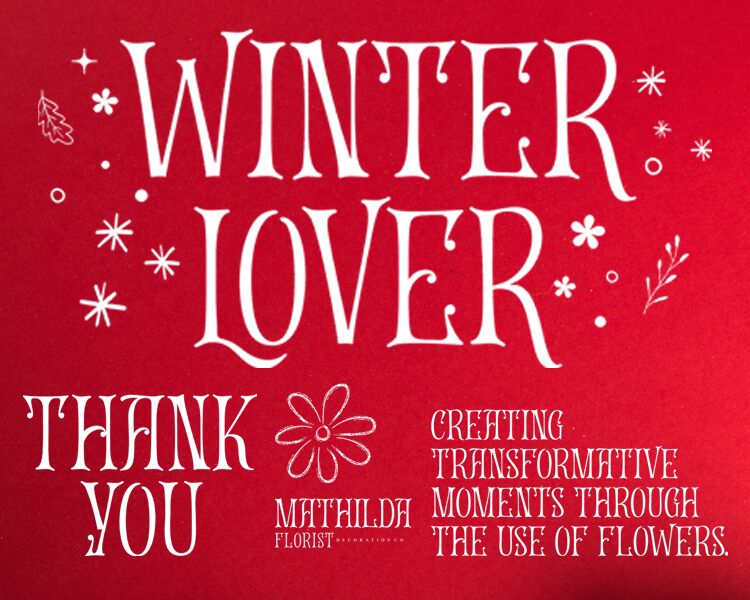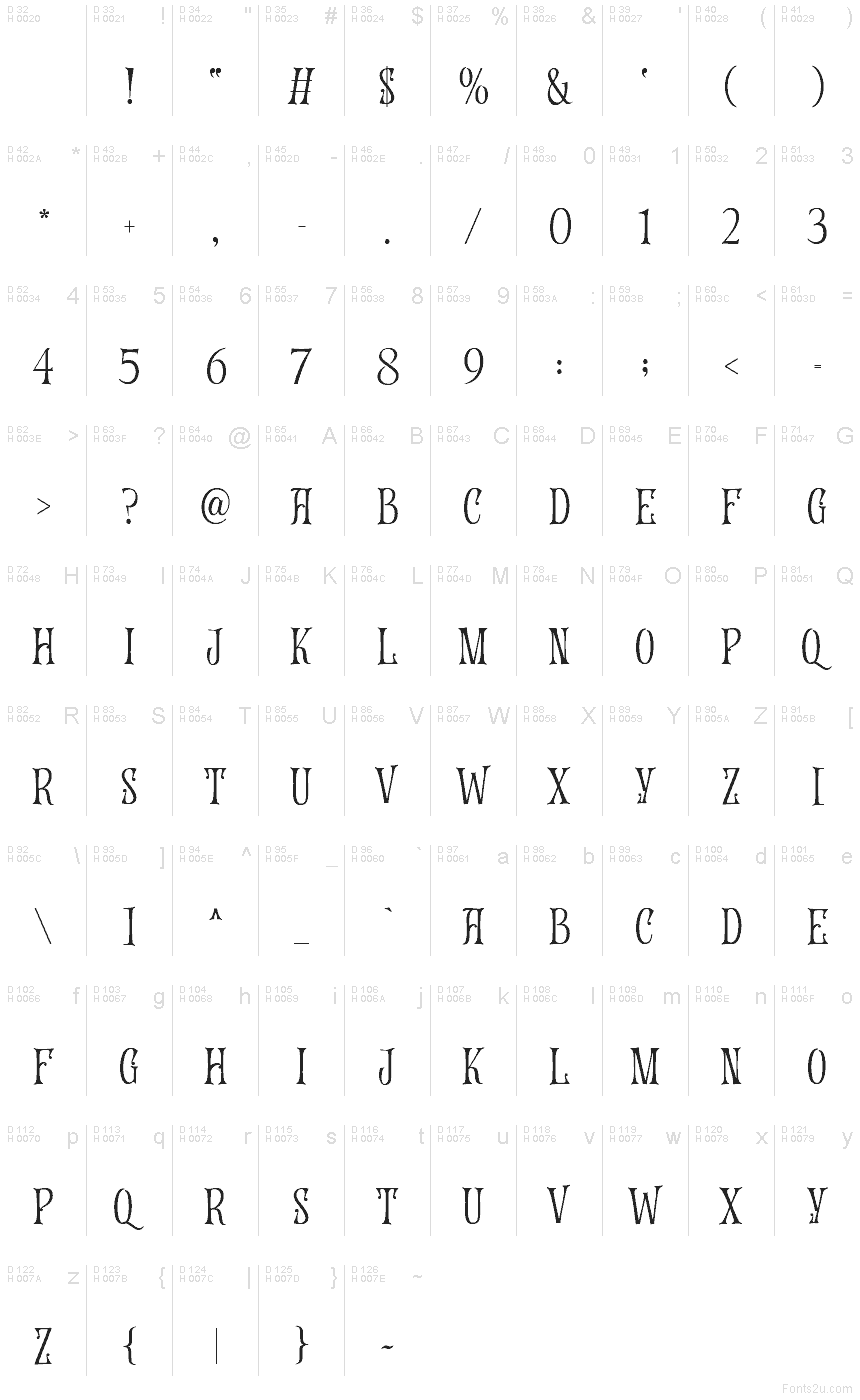
Winter Lover
Winter Lover font by Four Lines is a free Christmas decorative serif typeface that instantly feels like stepping into a snowy storybook. The tall, narrow letters stretch upward like frosty candle flames, while the curled terminals and subtle inky texture give each word a hand-crafted, old-world charm. It’s festive without being cheesy, so your holiday designs feel warm and nostalgic rather than overdone.
Using Winter Lover, headlines and short phrases really sing on Christmas cards, gift tags, seasonal packaging, party invitations, posters, and social media graphics. The consistent vertical rhythm keeps busy layouts from feeling cluttered, even with all those curls. For a balanced look, pair this free font with a clean, modern sans-serif for body text and let Winter Lover handle the cozy, attention-grabbing titles.